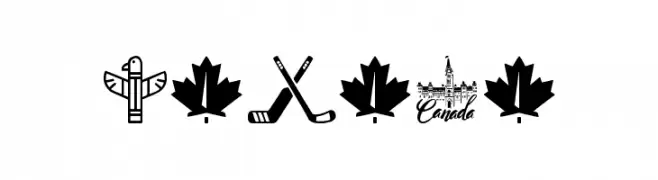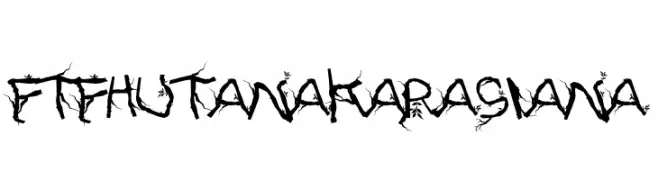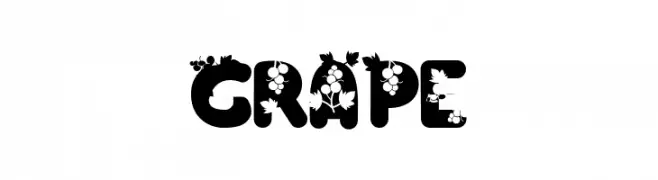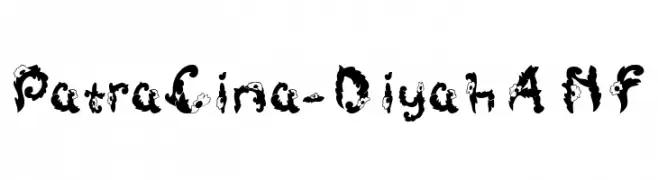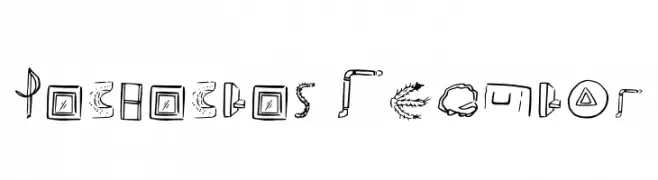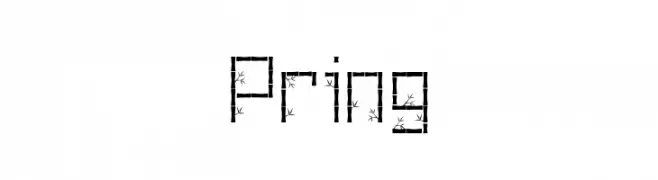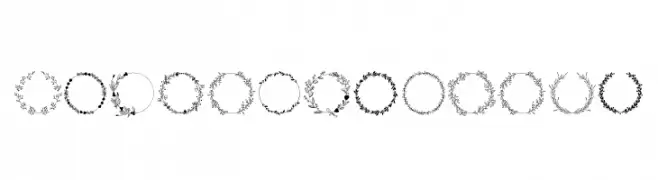
( Fonts by Youssef Habchi )
Hand-drawn floral and botanical wreaths with delicate, decorative style.
( Fonts by da_only_aan )
A decorative font inspired by bamboo sticks with a natural, organic style.
( Fonts by Bexxtype )
A decorative floral and botanical dingbat collection.
A Canada-themed icon font with bold, simple pictograms.
( Fonts by Plutarco Zazueta )
A decorative and artistic font with nature-inspired and abstract elements.
( Fonts by Ghuroba Studio )
Hand-drawn decorative border and motif dingbats.
( fizzeticatypefoundry.tumblr.com )
An organic, vine-like decorative font with intricate details.
( Fonts by Diyah Ayu )
A decorative font with organic, swirling patterns and a whimsical style.
( Fonts by Alfareaniy )
A playful, grapevine-themed decorative font with bold, rounded characters.